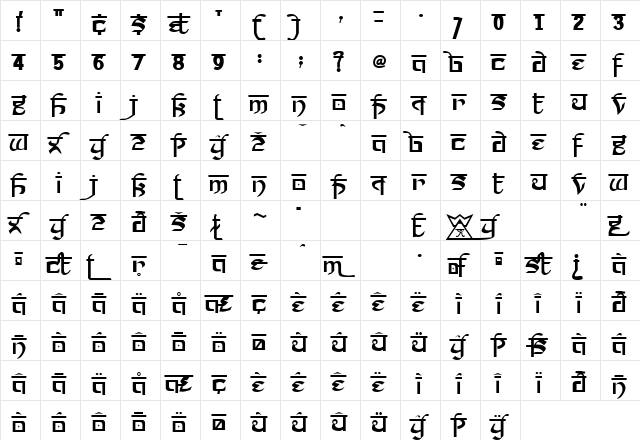
Prakrta Regular
Design Context for Prakrta Typeface
Prakrta is a composed and adaptable typeface that performs quietly and consistently across a wide range of design contexts.